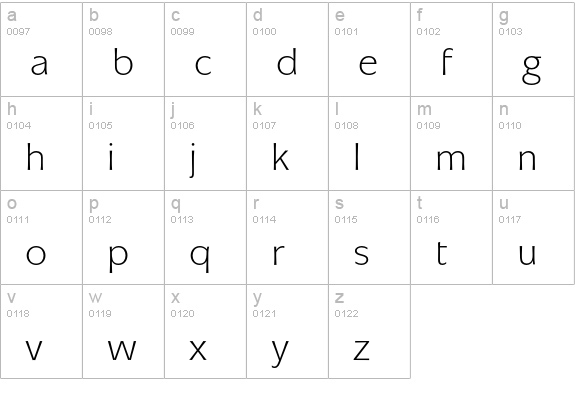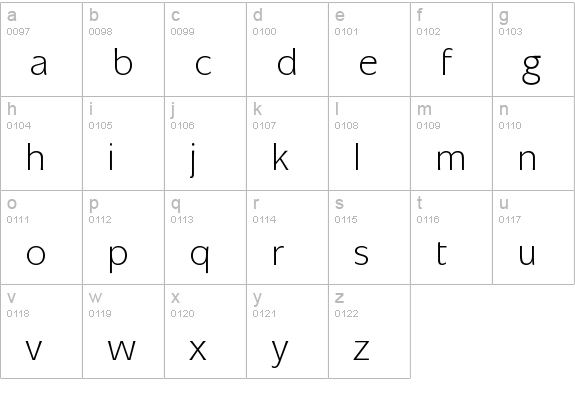
MixageEF-Book is a comfortable, highly readable variant in the MixageEF typeface family \xE2\x80\x94 well suited to long-form body text, articles, and editorial content.
MixageEF-Book is a modern and elegant font that strikes the perfect balance between professionalism and creativity. With its clean lines and sophisticated curves, this typeface is versatile and can be used for a wide range of design projects, from branding to editorial design. The MixageEF-Book font exudes a sense of sophistication and style, making it a perfect choice for those looking to add a touch of refinement to their work. The best part? MixageEF-Book is available for free download at FontsMarket.com. This means that you can easily access this high-quality font without any cost, making it a valuable addition to your font library. Whether you are a designer, a student, or a business owner looking to enhance your branding, MixageEF-Book is a fantastic choice that combines style and accessibility. Download MixageEF-Book today and elevate your design projects with this beautiful and versatile font.